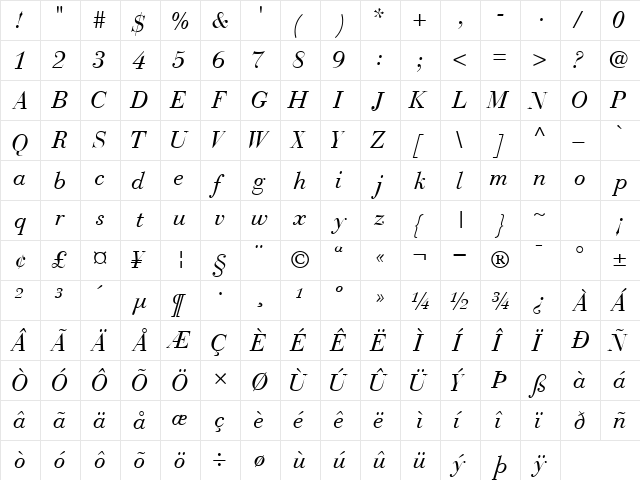
BodoniRecutSSK Italic Font Preview
BodoniRecutSSK Italic
Design Context for BodoniRecutSSK Typeface
BodoniRecutSSK takes a measured approach to typography — its balanced proportions and neutral character make it a reliable workhorse for both digital and print work. The slanted form adds forward momentum and visual energy.
Pro Tip: Try BodoniRecutSSK for annotation and caption copy alongside an upright companion — the contrast in angle creates a dynamic but ordered typographic system.